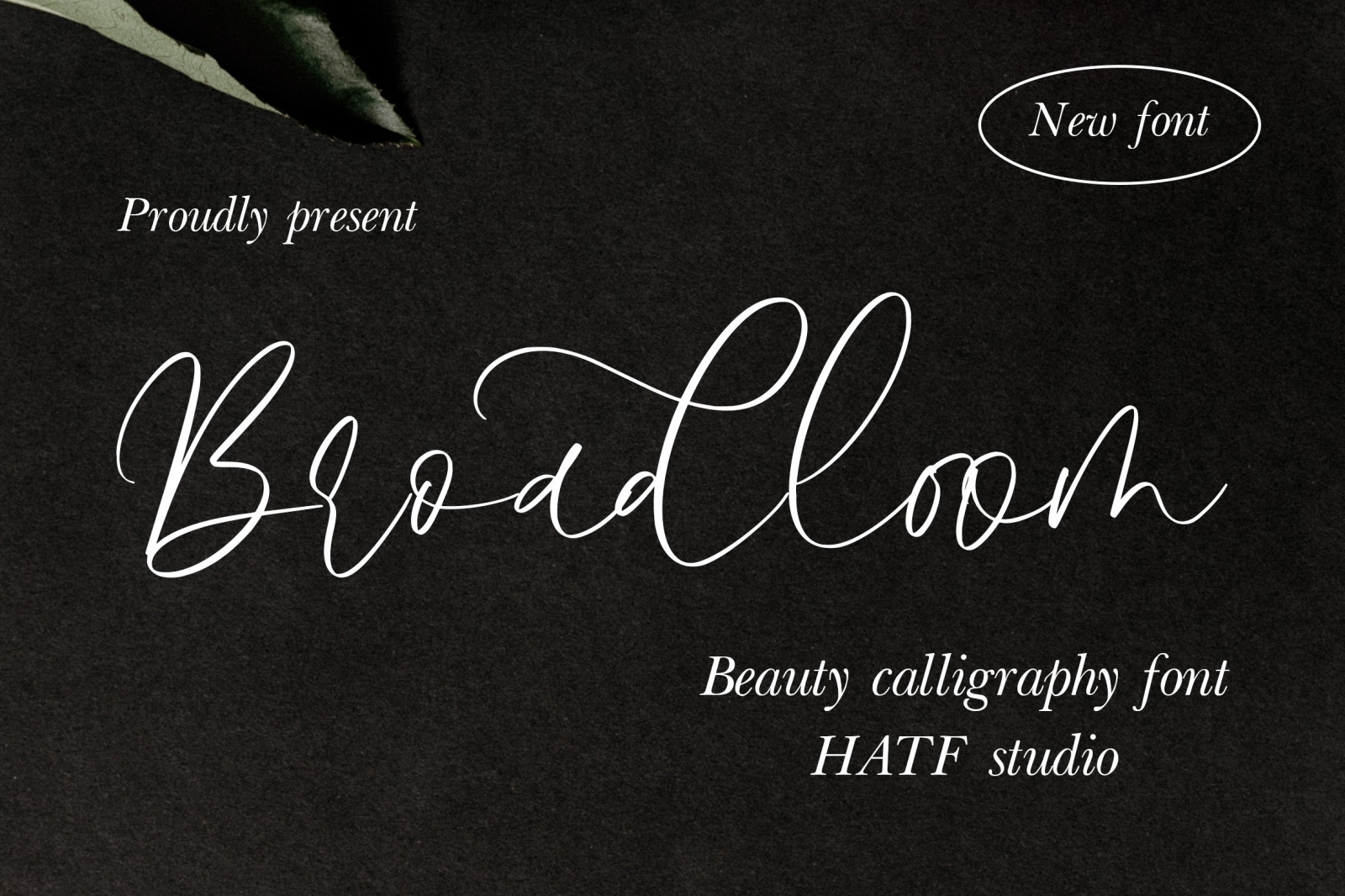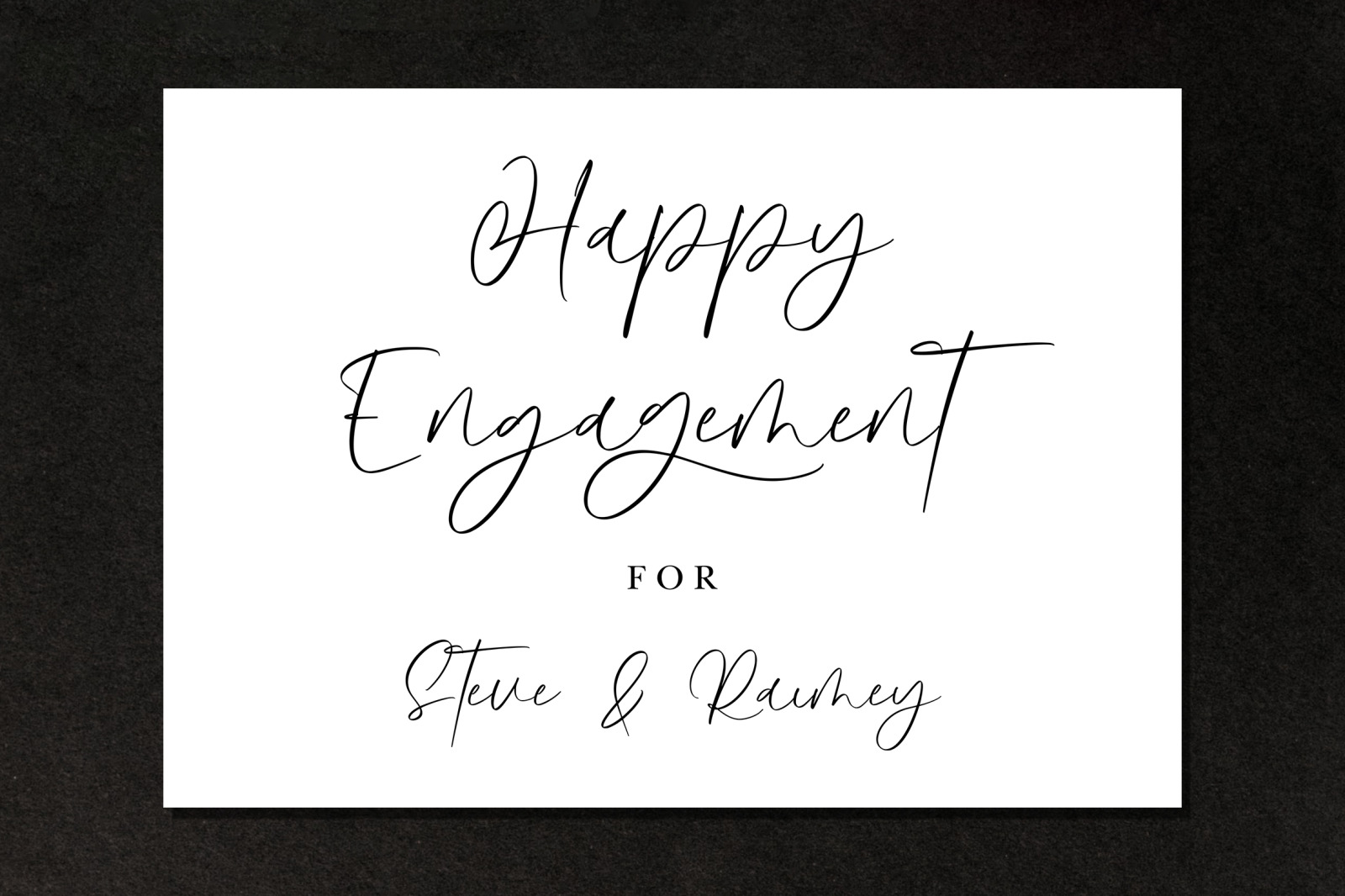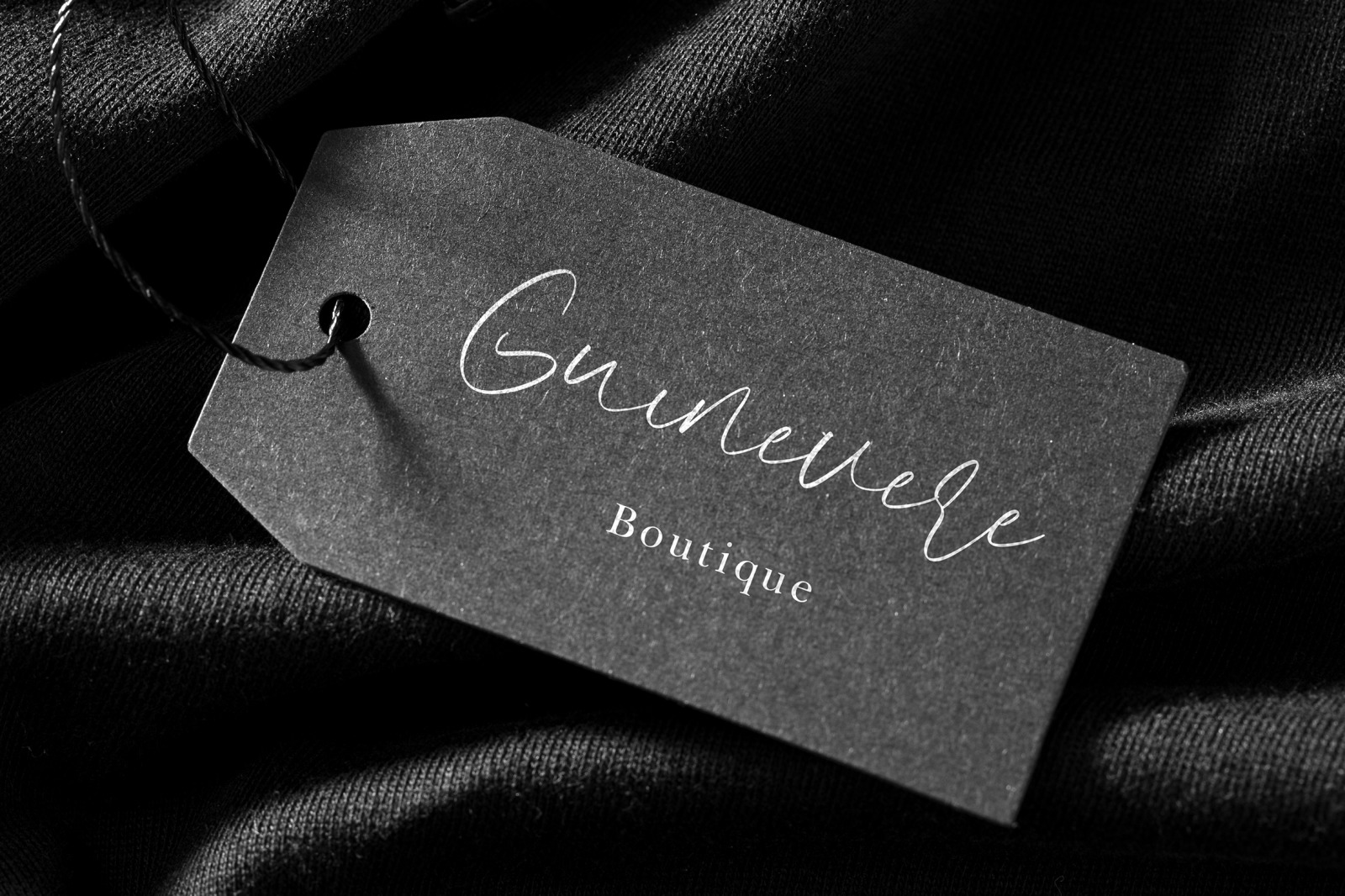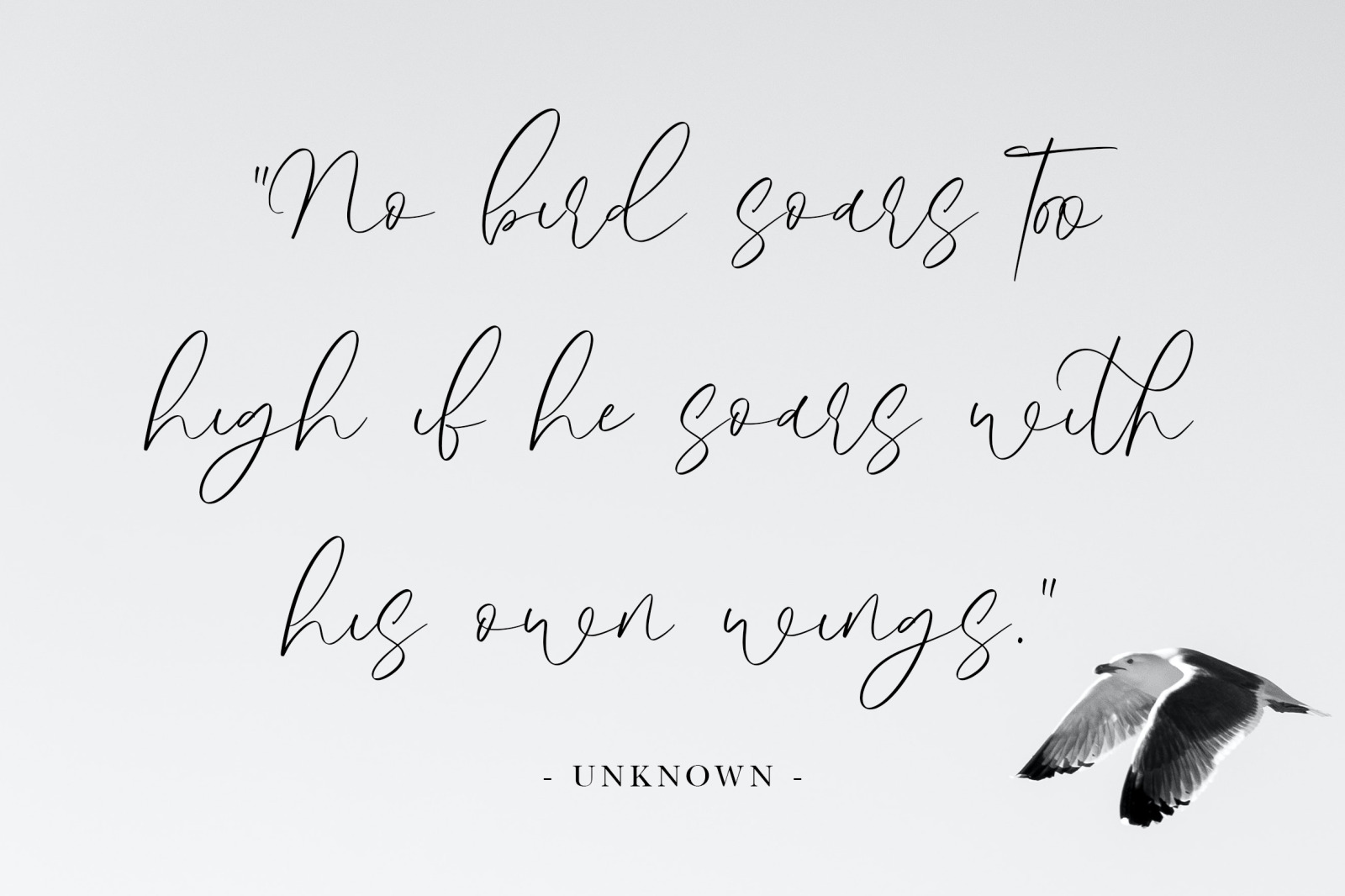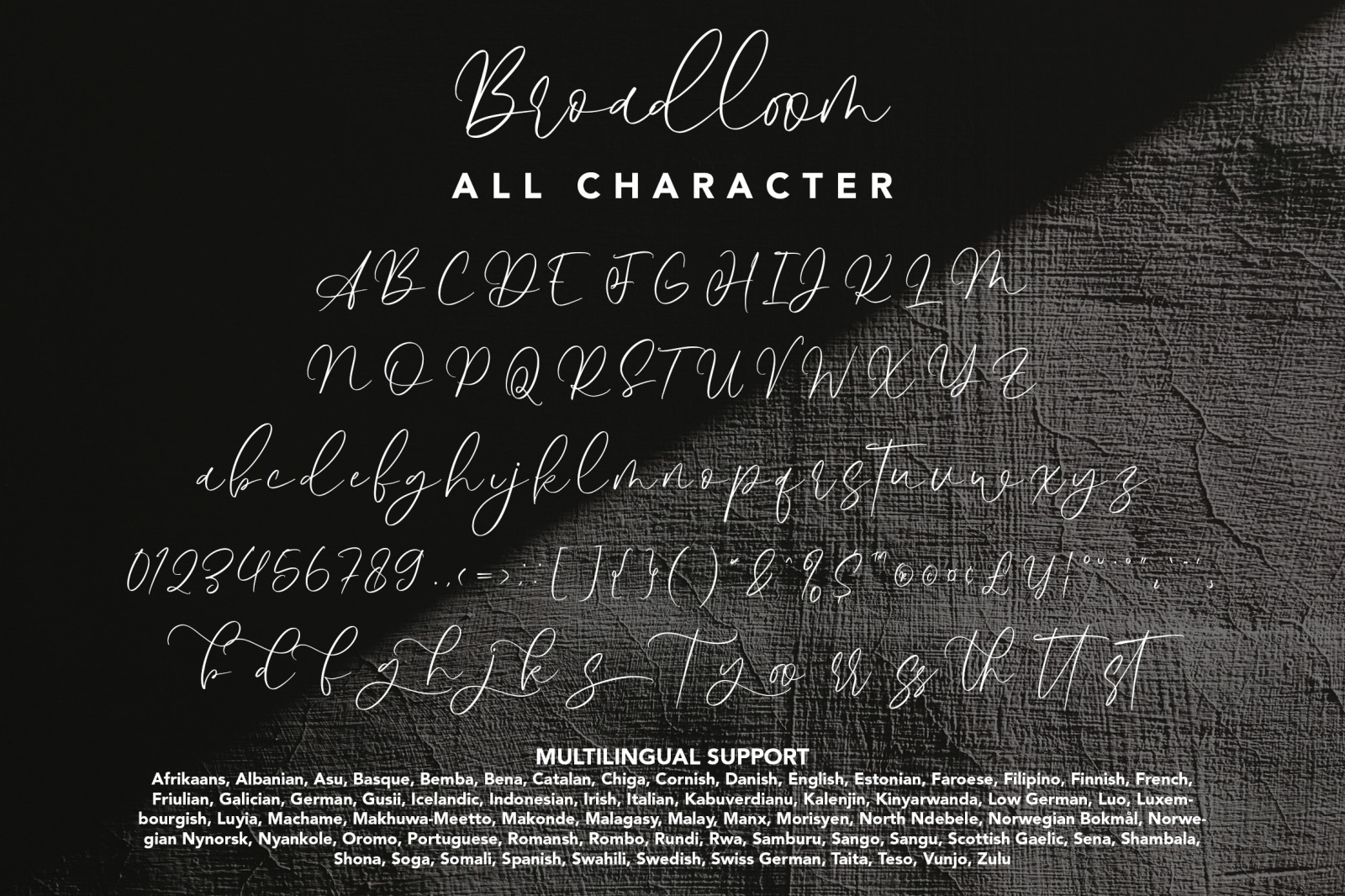
Broadloom Font
Is a beauty calligraphy font with distinctive handwritten characters perfect for branding projects, logos, wedding designs, media posts, advertisements, product packaging, product designs, labels, photography, watermarks, invitations, stationery, and any project who need handwritten dishes.
Feature :
* Symbol
* Number
* Punctuation
* Multilingual support
* Uppercase & Lowercase